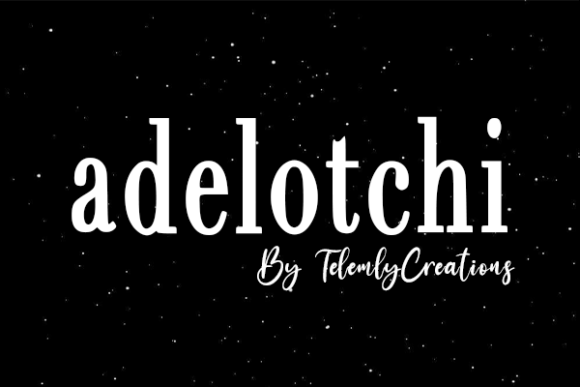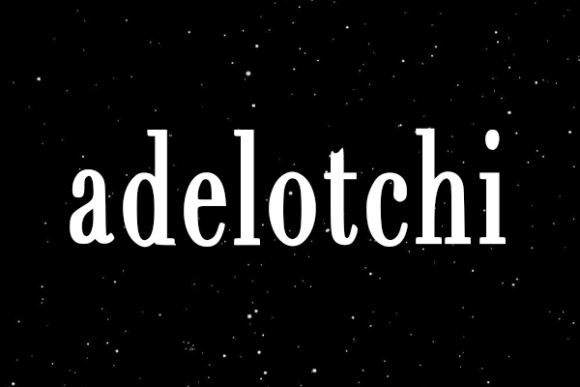
Adelotchi
Adelotchi: A Simple and Bold Slab Serif Font
Adelotchi is a simple and bold slab serif font. This beautiful and professional typeface is suitable for a wide range of applications, including film posters, headlines, block letters, subheadings, logo designs, and much more.
Key Features of Adelotchi
• Simple Design: Offers a clean and straightforward look suitable for various applications.
• Bold Style: Features strong, impactful letterforms that command attention.
• Slab Serif Structure: Incorporates distinctive serifs that add character and readability.
• Versatile Application: Ideal for both print and digital media projects.
Ideal Uses for Adelotchi
Adelotchi’s unique characteristics make it particularly well-suited for:
When incorporating Adelotchi into your designs, consider these tips:
• Use for headlines or short blocks of text to showcase its bold style.
• Utilize its professional appearance to enhance the credibility of your designs.
Adelotchi is an excellent choice for designers looking to add a simple yet bold slab serif font to their typographic toolkit. Its ability to create impactful designs makes it stand out in the world of typography. Whether you’re working on film posters, creating headlines for magazines, or developing logos for branding projects, Adelotchi offers the perfect blend of simplicity and boldness.
Furthermore, Adelotchi’s unique design allows it to shine in various contexts. From minimalist layouts to more complex designs that need a strong focal point, this font can elevate your projects. Its bold yet readable appearance works particularly well in designs that require a professional and engaging mood.
In conclusion, Adelotchi is a font that truly captures the essence of modern design and impact in typography. Its ability to work well in both large-scale applications and more intricate designs showcases its versatility. For those looking to add a touch of bold professionalism to their work, Adelotchi can enhance themed creations with its distinctive style. It’s the perfect choice for designers seeking to make a strong, stylish impact across a wide range of creative projects.